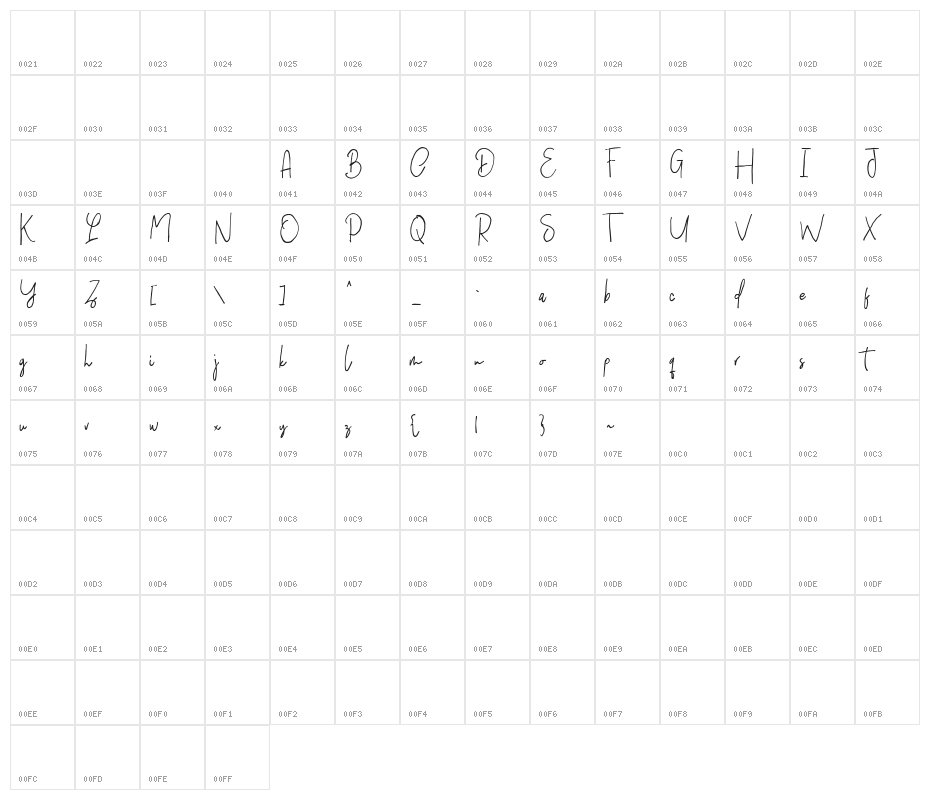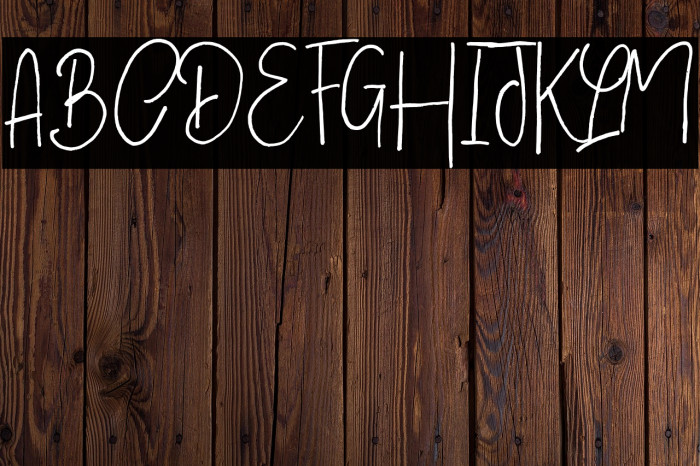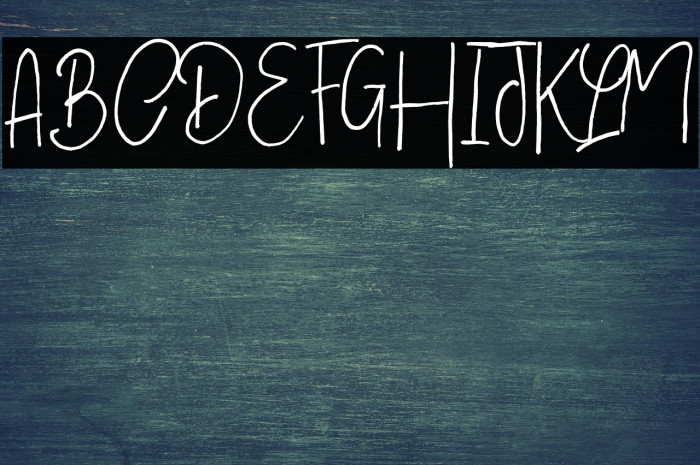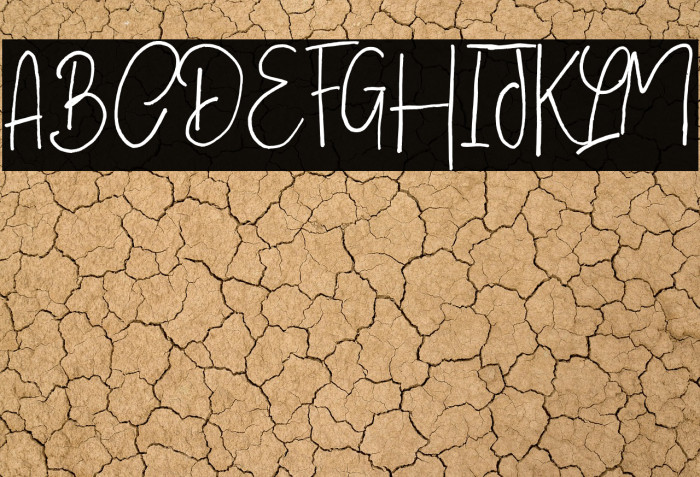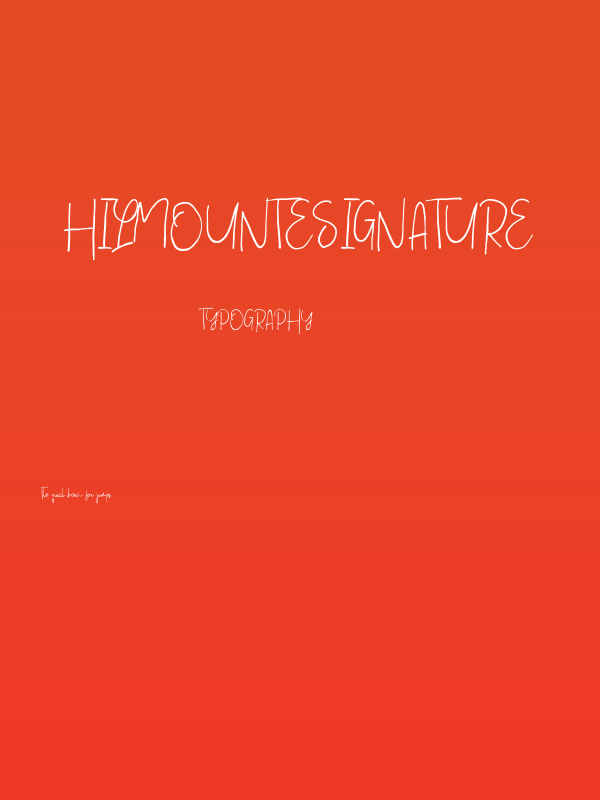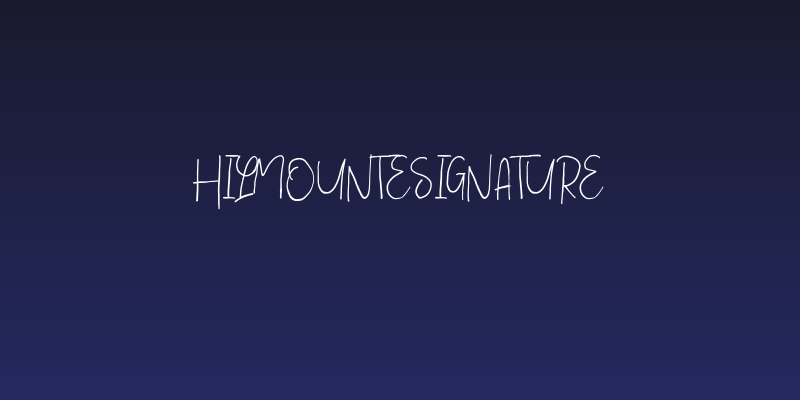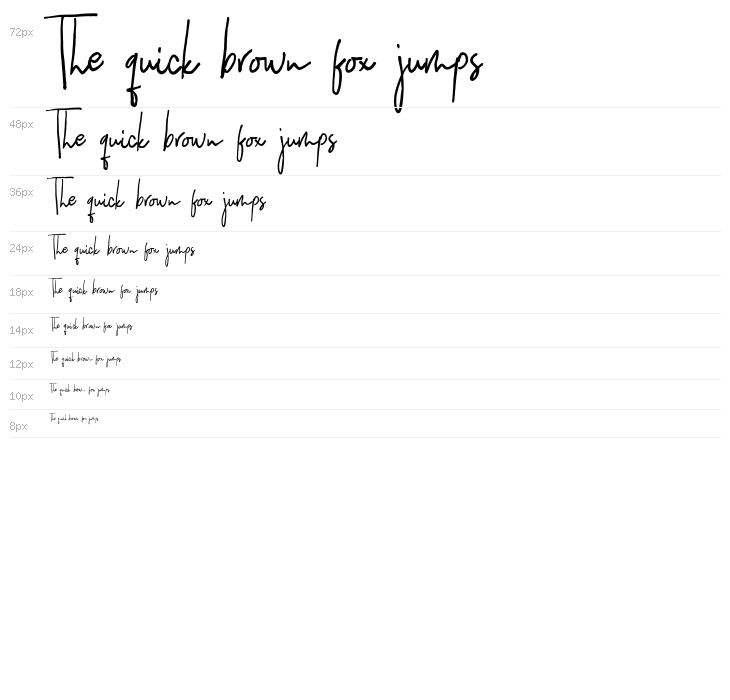
HilmounteSignature Font
HilmounteSignature Description
This font features a distinctive handwritten style with a casual and flowing appearance. The uppercase letters are tall and narrow, with a slight slant that adds to the dynamic feel. The lowercase letters are more compact, maintaining the same slant and fluidity. The strokes are consistent in thickness, giving the font a cohesive look. The overall design is elegant yet approachable, making it suitable for a variety of creative projects. The font's unique character is enhanced by its playful loops and curves, particularly noticeable in letters like 'g', 'y', and 'z'.
| Overall Style | Casual, Elegant |
| Use Case | Logos, Invitations, Personal Branding |
| Proposed Projects | Ideal for personal branding, invitations, greeting cards, and creative projects that require a personal touch. |